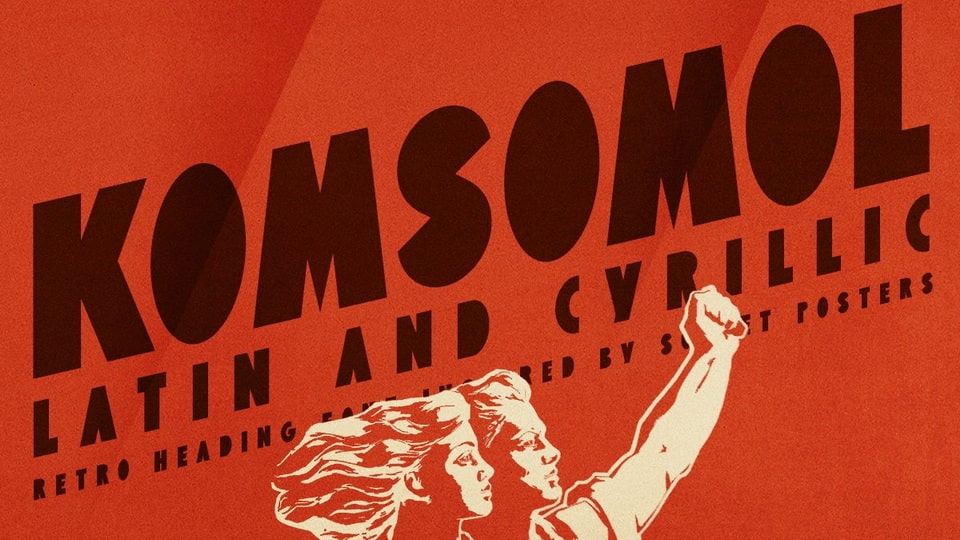
Download ST-Komsomol font, a bold grotesque typeface with retro-futuristic touch. ST-Komsomol created for titles, poster design, web design, branding and packaging works, illustrations, badges and other typography works.
Designer: Alexander Shimanov